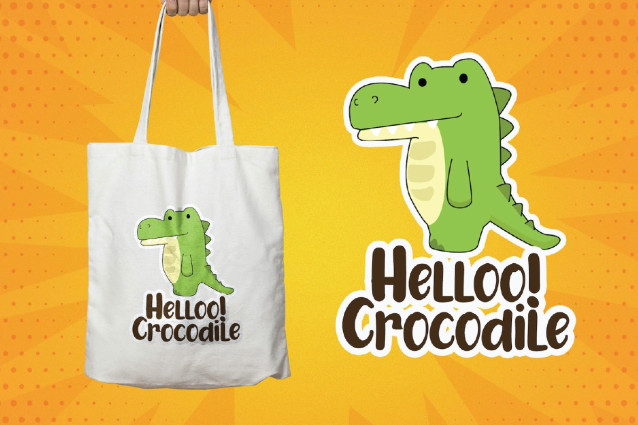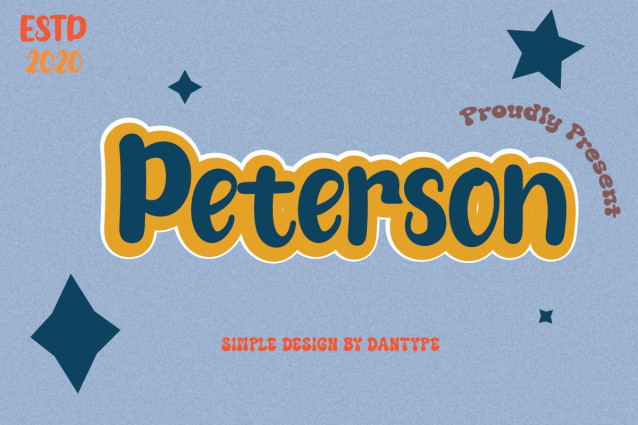
Peterson Playful Font
Peterson Playful Font – This font would be perfect for photography, watermarks, social media posts, advertisements, logos & branding, invitations, product design, labels, stationery, product packaging, special events, and other projects.